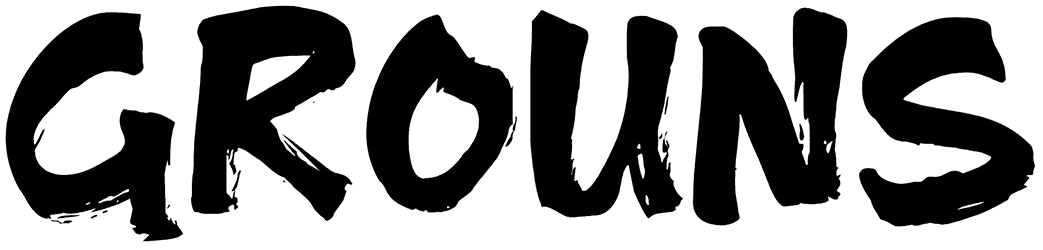
Grouns Font
To give an urban and artistic form to your text, a brush font like the present item could be a nice answer. The characters of Grouns font have a natural painted face, and it is going to make your design so cool. There is no offer for lowercase letters, but as a unique script font, you can test it for your upcoming project and see how amazing the result will be.
A dry brush font with spontaneous movements.
Goruns is perfect for designing t-shirts, stickers, headlines, sports, quotes, logotypes, brandings, and posters.